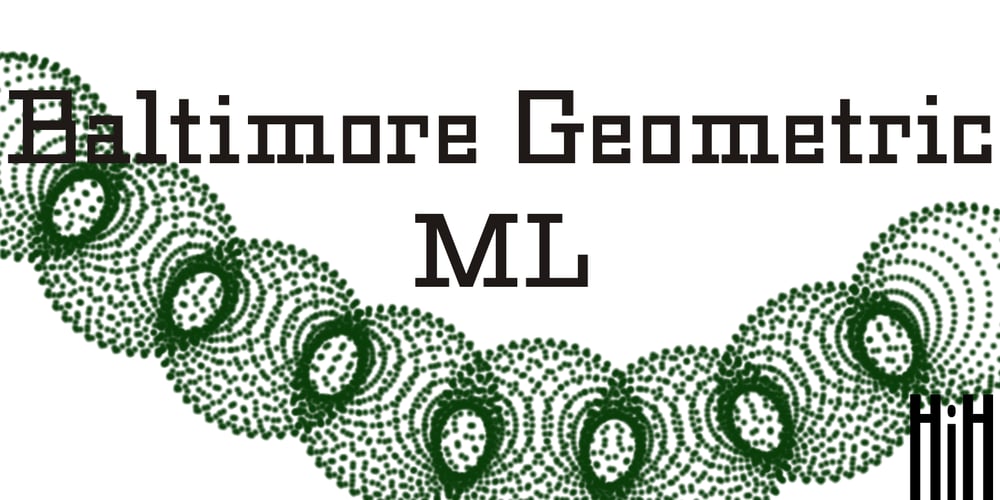
Baltimore Geometric
Baltimore Geometric font
Baltimore Geometric Font Family was designed by published by HiH. Baltimore Geometric contains 1 styles and family package options. Baltimore Type Foundry released its Antique Geometric series by 1883, including it that year on advance sheets for their 1886 Specimen Book, shortly after the firm was taken over by Charles J. Cary. We have chosen to call our version of the face “Baltimore Geometric” because we like the name better. The Central Type Foundry-Boston Type Foundry combine followed with a similar typeface in 1884, using an engraving machine to cut directly into matrices (Gray page 124). It was called simply “Geometric”. As noted in the write-up for HiH font Teutonia, a number of similar typeface designs have appeared over the years. The simplicity of concept is inviting and certainly fits nicely with some of the intellectual theories that developed in the early twentieth century, like the De Stijl and Constructivist movements. This font is useful in conveying an image that is logical and mechanical, implying a high degree of functionality.